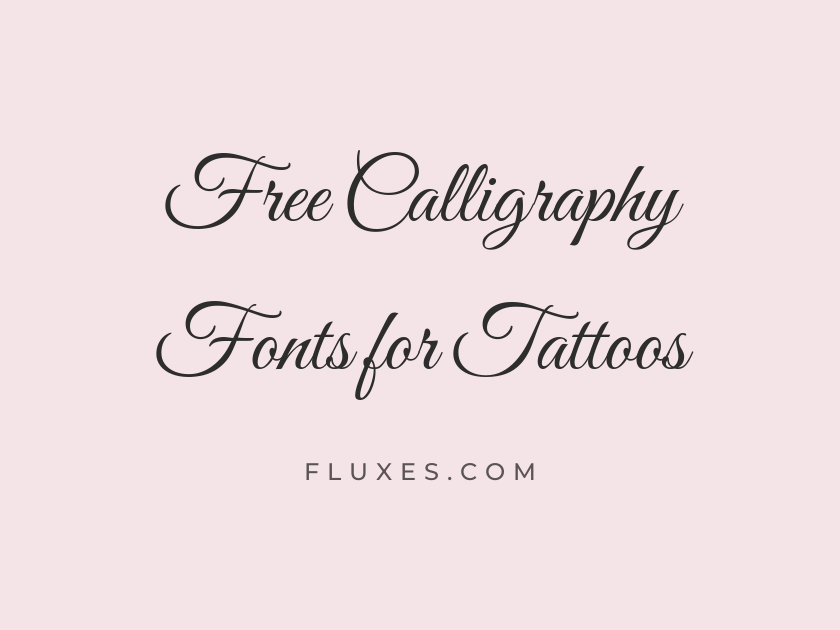
68 Best Free Calligraphy Fonts for Tattoos
Calligraphy has always belonged on skin. Long before digital type existed, tattoo flash was hand-lettered with pointed pens, brushes, and chisel-nib quills, and that lineage is exactly why script and blackletter fonts still dominate memorial pieces, name tattoos, and fine-line lettering today. Free calligraphy fonts for tattoos need to do something a wedding invitation font never has to worry about: survive being reduced to a stencil, hold up in thin linework, and still read clearly on curved, moving skin. The Google Fonts library has grown into a genuinely deep well for this kind of lettering, covering everything from formal copperplate scripts to gritty brush marker styles and Old English blackletter, all free to download and license for design work.
What follows is a wide survey of the styles tattoo artists and their clients search for most: elegant cursive for a single word on a forearm, bold brush scripts for a chest piece, monoline handwriting for a minimalist wrist tattoo, and gothic blackletter for a chest plate or knuckle set.
Great Vibes is the font most people picture when they imagine a tattoo script: tall ascenders, romantic loops, and a rhythm that reads as effortless even though every curve is carefully engineered. It has become something of a default for memorial tattoos and single-word pieces, which means it is instantly recognizable, so consider it when you want a classic look rather than something unexpected.
Alex Brush leans slightly more casual than a formal copperplate hand, with a bounce to the baseline that feels handwritten rather than engraved. It works beautifully at the small scale of a wrist or collarbone tattoo.
Thin, tapering strokes give Allura an airy, almost fragile quality that suits delicate fine-line tattoo work far better than bold chest pieces. Because the hairlines are so fine, ask for slightly thicker linework at the tattoo stage or the letterforms can blur under skin over time.
Pinyon Script carries a stately, old-money elegance with dramatic swashes on its capitals, making it a favorite for family names and surnames rendered as a single flowing line. Its capitals are the real showpiece here, so it pairs well with a shorter word where the swash has room to breathe.
Rounded, friendly, and a touch romantic, Parisienne avoids the severity of sharper copperplate scripts. It suits softer, more playful tattoo placements like a forearm or ankle rather than anything meant to look tough.
This one is pure vintage handwriting, loose and looping like an old love letter. It is expressive enough to feel personal, but the connected strokes demand a skilled tattoo artist to keep the linework crisp at small sizes.
Mr De Haviland
Mr De Haviland has a lighter touch than most tattoo scripts, with slender strokes that suggest a fountain pen rather than a brush. Reserve it for larger-scale pieces where the fine detail has room to survive the needle.
Ornate and old-fashioned, Herr Von Muellerhoff reads like something lifted from a 19th-century certificate. Its flourished capitals make single names or initials feel ceremonial.
Tighter and more upright than most calligraphy fonts on this list, Petit Formal Script keeps its loops modest and its baseline steady. That restraint makes it one of the more legible script options for smaller tattoo lettering.
Tangerine is extravagant, with long entrance strokes and generous loops that make even a short phrase feel like a signature. It is gorgeous printed large but can lose definition fast once shrunk to a small tattoo, so it rewards bigger placements like a back or thigh piece.
Sacramento keeps its loops compact and its slant consistent, giving it a cleaner, more contemporary feel than the more baroque scripts nearby on this list. It reads well in short bursts, which makes it a solid pick for a first name or a short mantra.
Italianno is dramatic and theatrical, its capitals swelling into wide, confident curves. It suits statement tattoos meant to be read from a distance rather than tucked into a discreet spot.
Lavishly Yours
True to its name, Lavishly Yours is unapologetically ornate, with thin, delicate strokes and wide, sweeping connections between letters. It photographs beautifully as tattoo flash art but needs a steady, experienced hand to translate cleanly into skin.
Imperial Script
Imperial Script has real weight and formality to it, closer to engraved wedding stationery than casual handwriting. That gravitas makes it a strong choice for tattoos honoring a name or date rather than a lighthearted phrase.
Beau Rivage
Calligraphy has earned its permanent place in tattoo culture because it turns a name, a date, or a single word into something that feels personally written rather than mass-produced. With this much free, well-crafted lettering available through Google Fonts, there is no shortage of ways to find a script, brush, or blackletter style that matches the story you want on your skin.